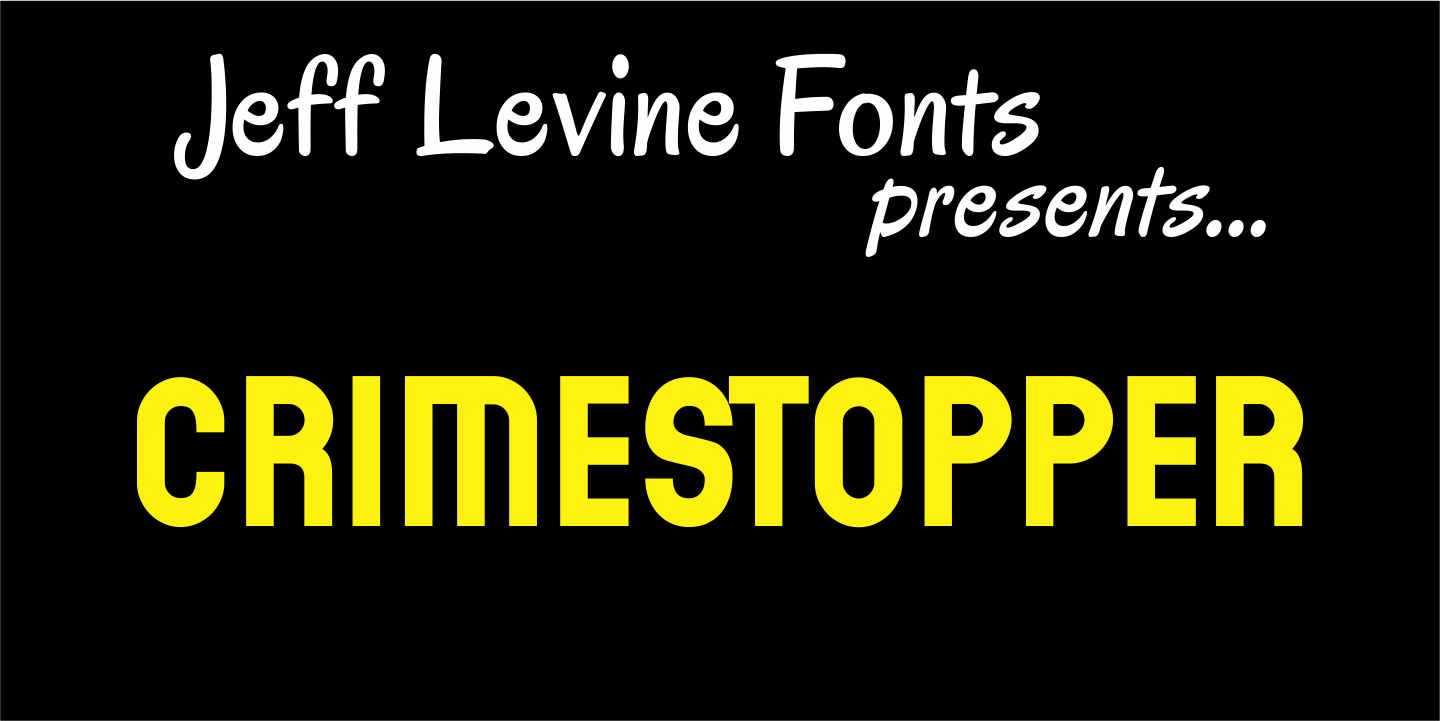
Crimestopper
Crimestopper JNL is the aptly-named font fresh out the era of film noir and clever private detectives who always seemed to have the right answer to the question "Whodunit?"